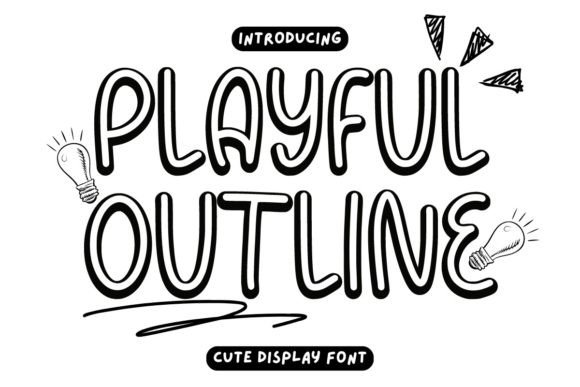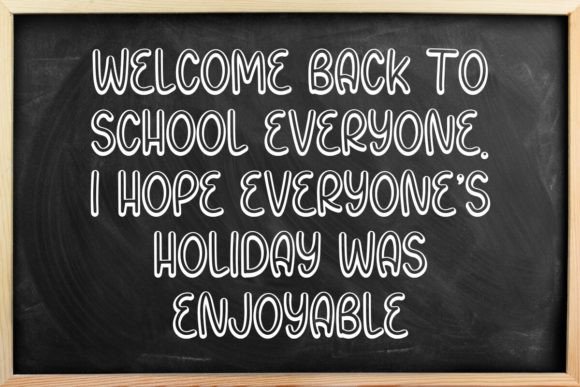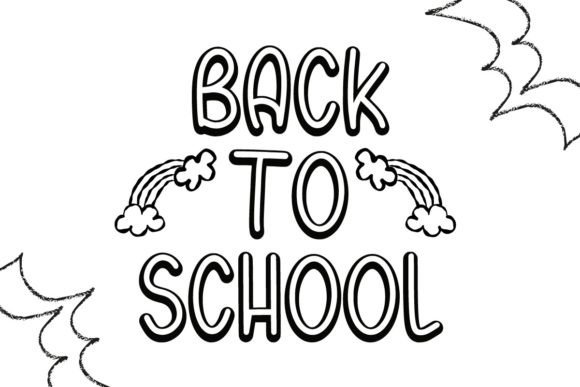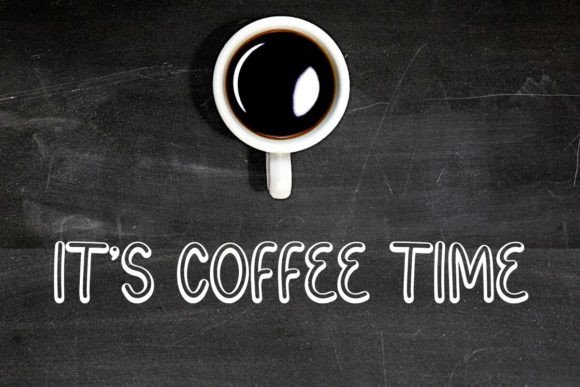
About the Playful Outline Font
Unleash your creativity with Playful Outline Font, a versatile font perfect for a wide range of applications. Introducing Playful Outline, the effortlessly distinctive display font. Crafted with versatility in mind, this font breathes life into any creative endeavor. Its charm lies in its unique design which makes it standout addition to your font collection. Regardless of the theme or canvas, Playful Outline has the prowess to amplify the allure of your digital masterpiece.
Playful Outline excels as a display font for headlines, logos, and short, impactful text in posters or social media graphics. Its bold, friendly personality is ideal for projects targeting a younger demographic or those needing a touch of whimsical energy. Avoid using it for body text or lengthy paragraphs; its outlined design can become visually tiring at smaller sizes.
Consider pairing Playful Outline with a clean sans-serif like Open Sans for body copy to create a strong visual hierarchy. For a more playful feel, a rounded geometric sans-serif such as Poppins could work well. A contrasting serif like Lora can add sophistication and balance if a more elegant look is required.
The font’s core personality is undeniably bold and playful, yet retains a degree of approachability. It’s perfect for brands focusing on fun, creativity, and child-friendly products or services.
Playful Outline Font Usage Examples
Playful Outline Font Example